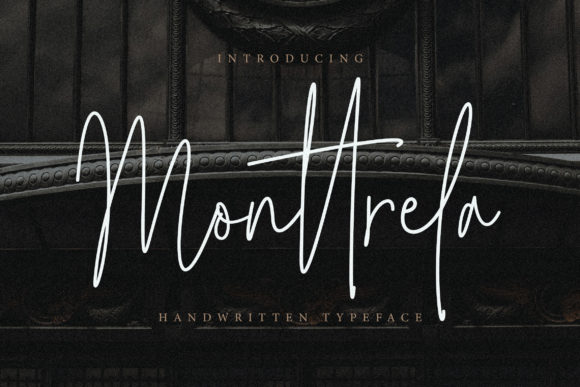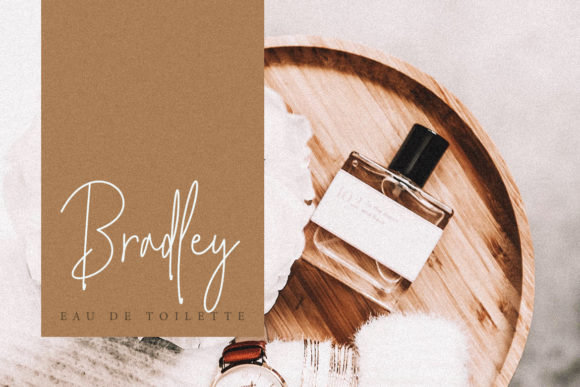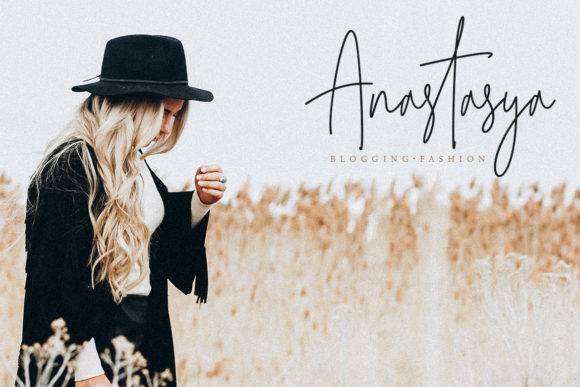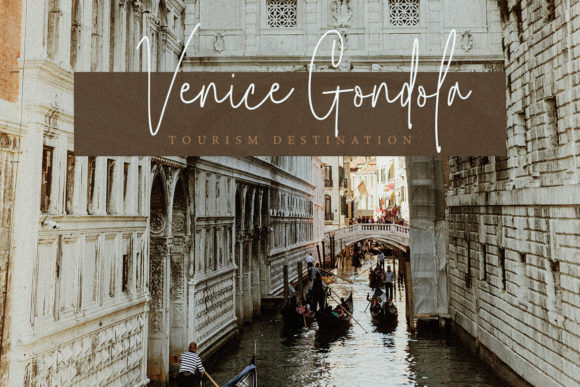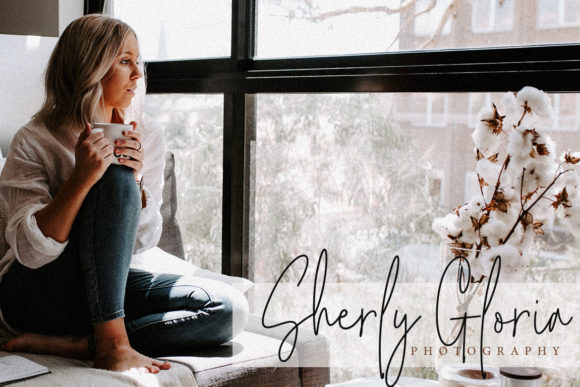
Monttrela Font
About Monttrela Font
Monttrela is a beautiful and charming handwritten font with a stunning feel. Use it to turn any design project into a stand out!